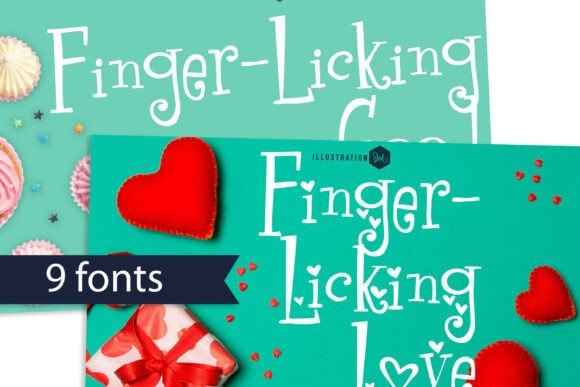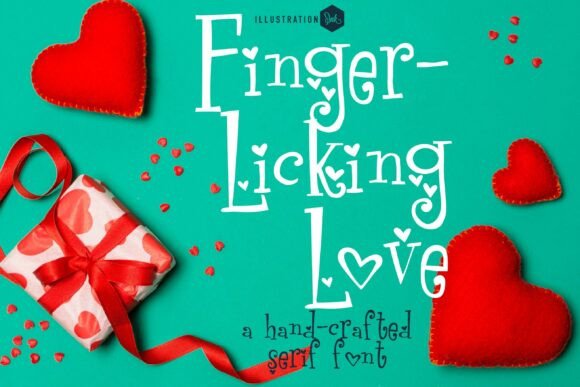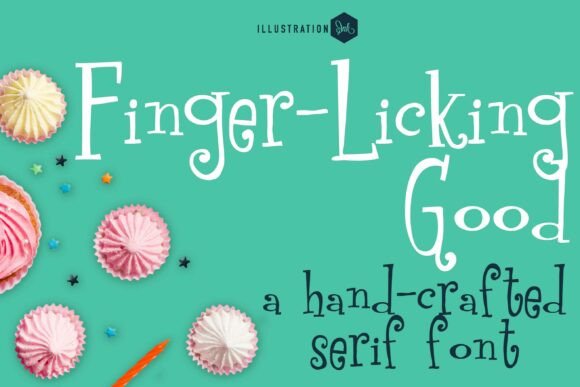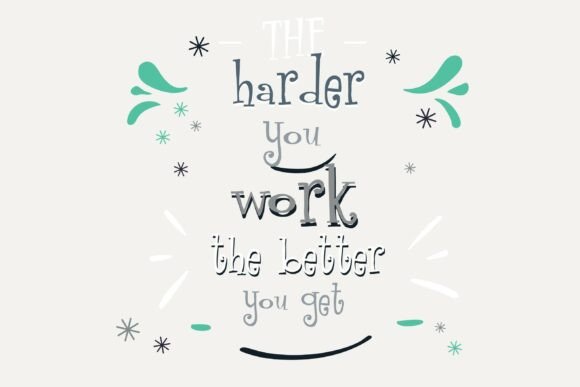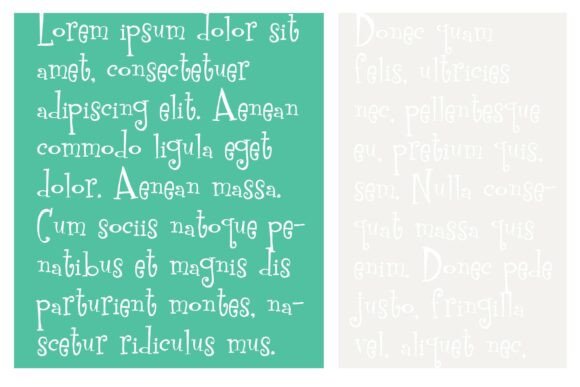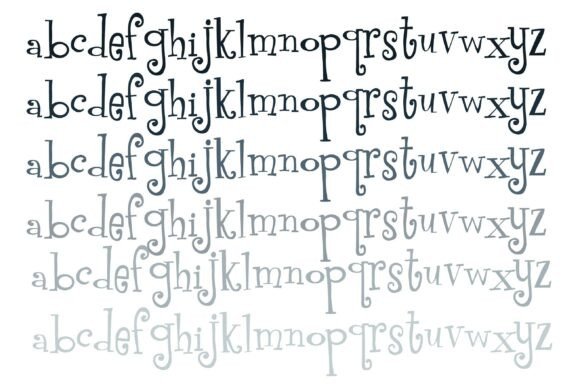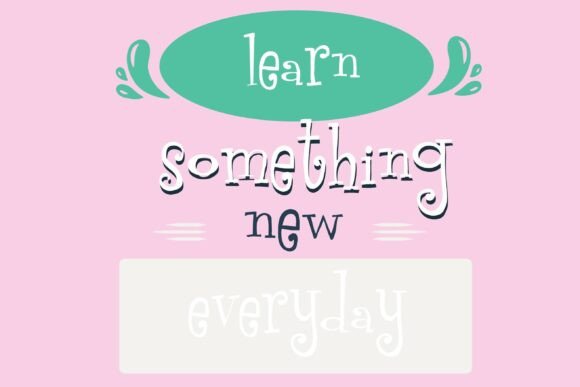
Sweeten Your Designs with the Perfect Font
As you sit at your desk, surrounded by scraps of paper, colored pencils, and half-finished projects, the spark of creativity strikes. You envision a whimsical bakery logo, a set of adorable planner stickers, or a charming children’s party invitation that captures the essence of sweetness and simplicity. The key to bringing your vision to life lies in the perfect font – one that exudes warmth, playfulness, and a dash of handmade charm.
Enter the Finger Licking Font, a delightful display serif typeface that embodies the essence of a sweet treat. With its tall, spindly vertical strokes and heart-shaped dots, this font is the ultimate choice for designers seeking to add a touch of whimsy to their projects. Its playful, slightly irregular alignment gives it a handcrafted feel that’s both authentic and endearing. Whether you’re designing a bakery brand, a café menu, or a feminine lifestyle blog, the Finger Licking Font is the perfect ingredient to add a dash of affection and personality to your work.
Finger Licking Font Key Features
- Font Family: Finger Licking Font offers a range of unique and playful font styles, including bold, italic, and regular variations.
- Unique Characteristics: Finger Licking Font features a distinctive, hand-drawn style with exaggerated lines and curves, adding a touch of whimsy to any design.
- Character Set: Includes a comprehensive set of Latin characters, including accents and punctuation marks, making it suitable for a wide range of languages.
Finger Licking Font Review
I’ve had the chance to work with “Finger Licking Font” and here’s my honest review.
- The font’s unique, playful design makes it perfect for branding and advertising projects.
- It’s highly legible, even at smaller font sizes, making it suitable for various applications.
- The font family includes a range of weights, from light to bold, giving designers flexibility in their designs.
- The font’s design, while unique, may not appeal to all designers or clients.
- The font’s simplicity may make it less effective for more complex or formal designs.
- The font’s availability in only a few languages may limit its use in global projects.
“Finger Licking Font” is a solid choice for designers looking for a fun, playful font. While it may not be the best fit for every project, its unique design and flexibility make it a great option for those looking for something a bit different. With a bit of caution and consideration, this font can add a touch of whimsy to any design.
Tips for Getting the Most Out of Finger Licking Font
1. Experiment with different font sizes and styles to achieve the desired effect.
2. Combine Finger Licking Font with other creative elements to create a unique visual identity.
3. Use it for promotional materials, social media graphics, or branding projects.
Finger Licking Font is perfect for:
1. Food and beverage branding.
2. Restaurant and cafe menus.
3. Social media graphics and promotions.
Alternatives to Finger Licking Font
Great Vibes is a beautiful, handwritten font perfect for creating a relaxed and friendly atmosphere. It’s ideal for use in social media graphics, advertising, and other designs where a casual tone is desired.
Compared to Finger Licking Font, Great Vibes has a more casual and carefree feel, making it suitable for designs that require a more laid-back tone. While Finger Licking Font is often used for its bold and playful look, Great Vibes is better suited for designs that need a softer, more approachable feel.
Pacifico is a elegant, cursive font that exudes a sense of sophistication and refinement. It’s perfect for use in high-end designs, such as luxury branding, weddings, and other special occasions.